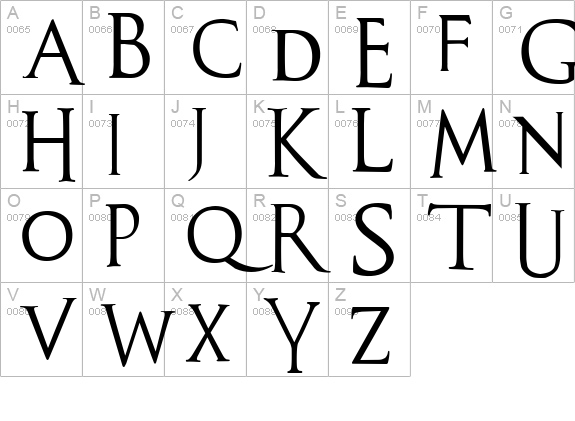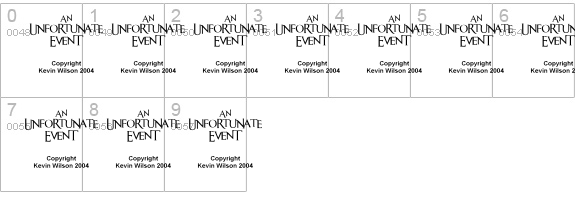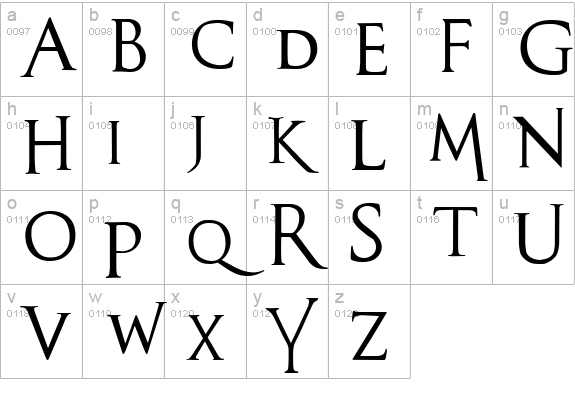
An Unfortunate Event Font Details
An Unfortunate Event font captures the essence of mystery and intrigue with its unique and ominous design. This gothic-inspired font features sharp edges and intricate details that evoke a sense of foreboding and darkness. Despite its somber appearance, An Unfortunate Event font is free to download at FontsMarket.com, allowing users to add a touch of mystique to their projects without any cost. Embrace the dark side of design and unleash the power of An Unfortunate Event font in your creative endeavors.